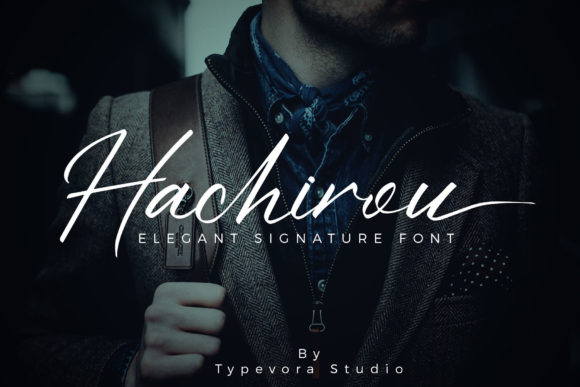
In the realm of digital expression, where words dance across screens and pixels paint vibrant tales, allow us to introduce Hachirou, a script font that's like a breath of fresh artistry. Its presence is like a whisper of elegance, an embodiment of grace and finesse, waiting to heighten your creative brilliance.
Experience the allure of Hachirou, a script font that weaves magic into your designs. Its lines are a symphony of curves, mimicking the effortless flow of a master calligrapher's hand. Each letter dances across the screen, painting a story of elegance and sophistication.
With Hachirou, your creative vision knows no limits. Immerse yourself in a world of endless possibilities, where your designs take center stage, exuding a charm that captivates and enchants. Whether you're crafting logos that ooze luxury or crafting invitations that whisper romance, this font is your muse.
Harness the evocative power of Hachirou to craft headlines that leap off the screen, demanding attention with their captivating allure. Its characters are like tiny works of art, drawing the eye with their intricate beauty, ensuring your message resonates with audiences.
Hachirou isn't just a font; it's an experience, an invitation to transcend the ordinary and embrace the extraordinary. Let its graceful strokes guide your artistic journey, leaving an indelible mark on the hearts of those who encounter your creations.